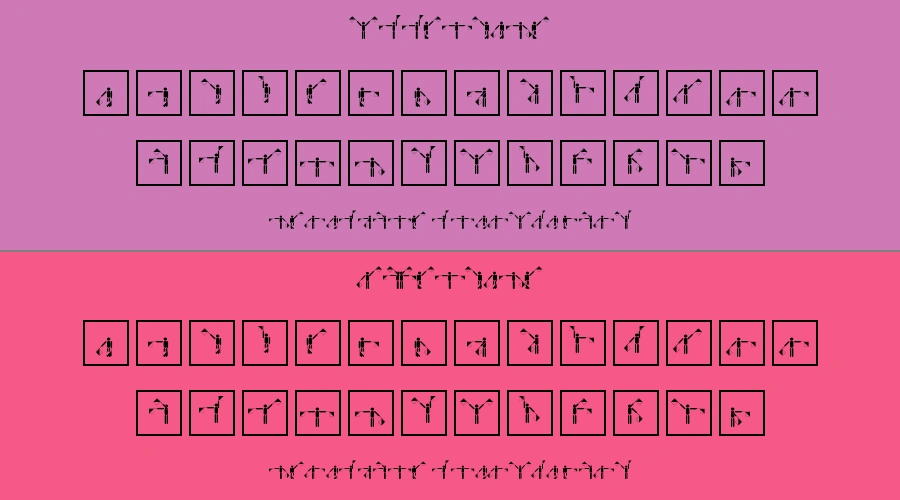
About Semaphore Pramuka Font
Semaphore Pramuka Font represents a sophisticated approach to type design, balancing humanist proportions with signature style. Perfect for advertising campaigns, this font family showcases impressive memorability and creative potential throughout its character set. Designers appreciate its versatility and reliability.
Designers will appreciate nuanced touches including contextual swashes and decorative sets, adding sophistication to any project. These features become apparent in retail environments, where brand recognition matters most. The careful treatment of apex design and historical references ensures optimal performance.